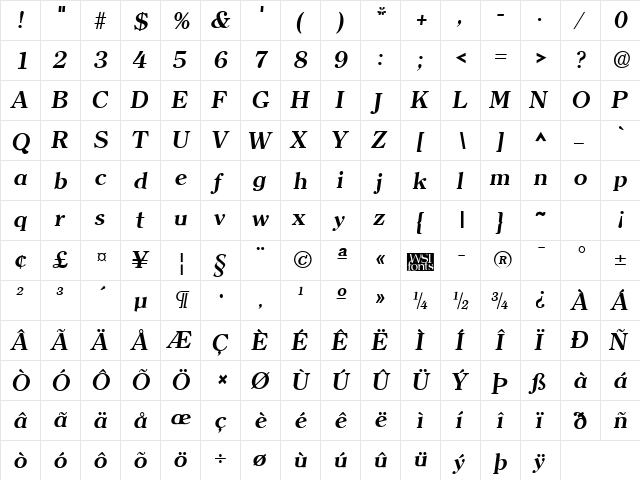
ClearlyRoman Bold Italic
Design Context for ClearlyRoman Typeface
ClearlyRoman offers clean, dependable letterforms without strong stylistic allegiance, making it a practical choice for designers who need flexibility. The dynamic lean of this cut emphasises speed and emphasis in any layout. Its bold stroke weight gives it real presence on the page.
Pro Tip: Use ClearlyRoman for emphasis, pull quotes, and subheadings where its slanted energy can add rhythm to the layout.